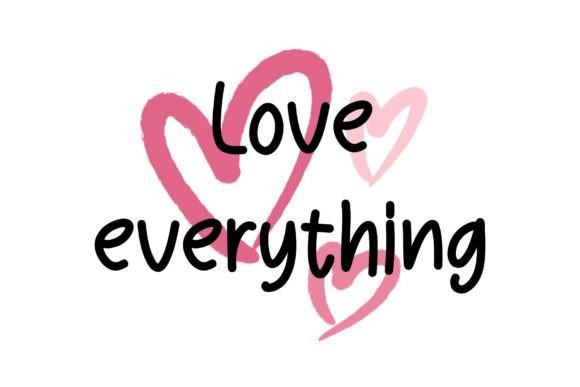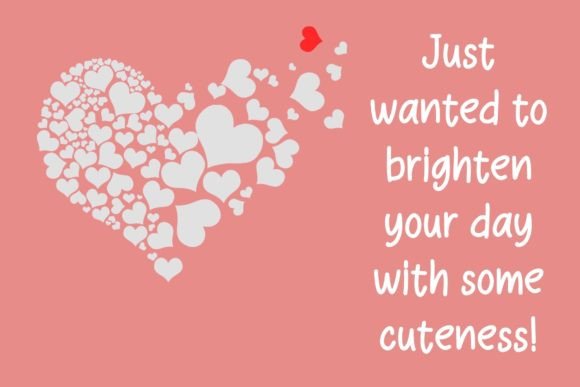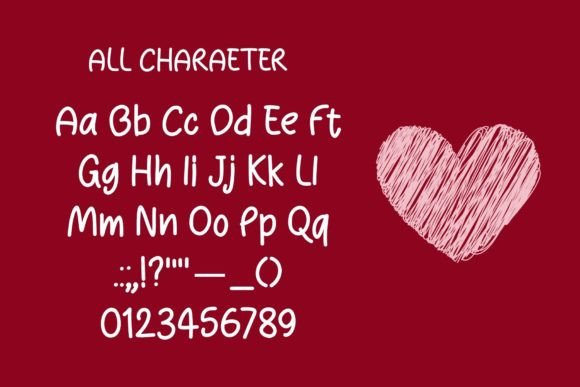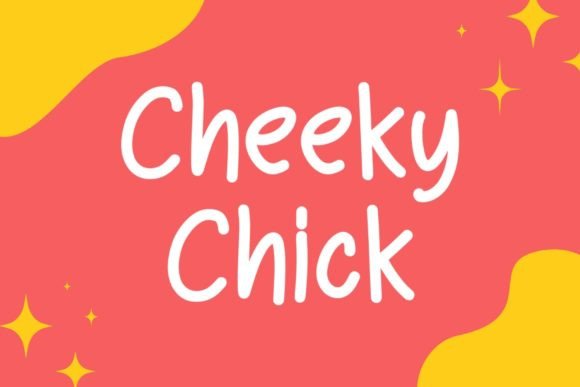
The Perfect Font for a Playful Touch
Remember the moment when you stumbled upon a font that made your design pop? A font that exuded fun, personality, and energy? For designers, this moment is what makes all the hard work worth it. It’s the thrill of discovering a font that instantly elevates your project and puts a smile on your face.
Enter the Cheeky Chick Font, a charming typeface that’s designed to bring a playful touch to your designs. With its curvy and energetic letterforms, this font is perfect for projects that need a dose of fun and whimsy. Whether you’re designing greeting cards, crafting cute logos, or creating eye-catching posters, the Cheeky Chick Font is a valuable addition to your design arsenal.
Cheeky Chick Font Key Features
- Font Style: Casual, Whimsical, Handwritten
- Unique Characteristics: Includes alternate characters, swashes, and flourishes for added creativity and flair
Designer Review: Cheeky Chick Font
Overall, I have mixed feelings about the “Cheeky Chick Font”. On one hand, it’s a fun and playful font that could add a touch of whimsy to a design project. ✨ The font’s curly, handwritten feel could be perfect for creating a lighthearted and approachable vibe.
- It’s great for creating hand-written style text
- It adds a fun and playful touch to a design
- It’s easy to read in small text sizes
However, there are some limitations to consider. ⚠️ The font’s overall look can feel a bit too playful, and may not be suitable for more formal or professional projects. Additionally, the font may not be the best choice for projects that require a high level of precision or clarity.
- It may not be suitable for formal or professional projects
- It may not be the best choice for projects that require precision or clarity
- It can feel a bit over-the-top or cartoonish at times
Overall, I would recommend the “Cheeky Chick Font” for projects that require a lighthearted and playful touch. However, it’s not the best choice for more formal or complex projects.
The Cheeky Chick font is ideal for playful and whimsical designs, such as children’s books, party invitations, and social media graphics. To get the most out of the font, use it sparingly and in combination with bold and colorful elements. Experiment with different font sizes and styles to create visual interest.
Alternatives to Cheeky Chick Font
Alex Brush Font is a beautiful, handwritten font perfect for adding a personal touch to designs. It’s ideal for use in invitations, greeting cards, and other creative projects where a unique, handwritten feel is desired.
Compared to Cheeky Chick Font, Alex Brush Font has a more elegant and refined look, making it suitable for more formal designs. It lacks the bold, playful feel of Cheeky Chick, but offers a softer, more delicate alternative.
Great Vibes Font is a modern, cursive font that exudes a carefree and optimistic vibe. It’s perfect for use in designs that require a sense of fun and adventure, such as travel brochures, posters, and social media graphics.
Unlike Cheeky Chick Font, Great Vibes Font has a more fluid and organic feel, making it ideal for designs that require a sense of movement and energy. It’s also more versatile and can be used in a wide range of design contexts.
Lobster Font is a bold, cursive font that’s perfect for adding a touch of whimsy and playfulness to designs. It’s ideal for use in designs that require a sense of fun and humor, such as food menus, posters, and social media graphics.
Compared to Cheeky Chick Font, Lobster Font has a more dramatic and attention-grabbing feel, making it suitable for designs that require a bold statement. It lacks the softer, more delicate feel of Cheeky Chick, but offers a more energetic and playful alternative.
Q: Does the Cheeky Chick Font include any special characters or language support?
The Cheeky Chick Font includes a comprehensive character set, covering a wide range of languages, including Latin, Cyrillic, and Greek scripts. Additionally, the font includes various special characters, such as punctuation marks, emojis, and currency symbols. Please refer to the font’s documentation for a detailed character map and language support information.